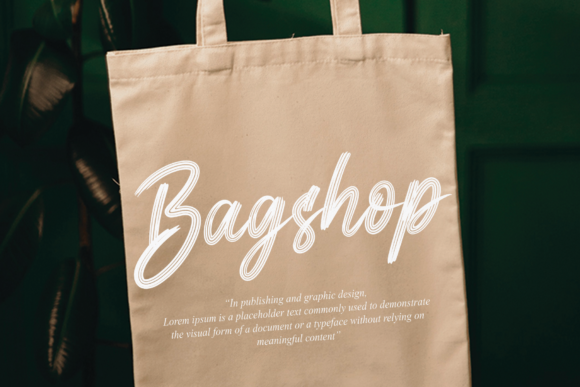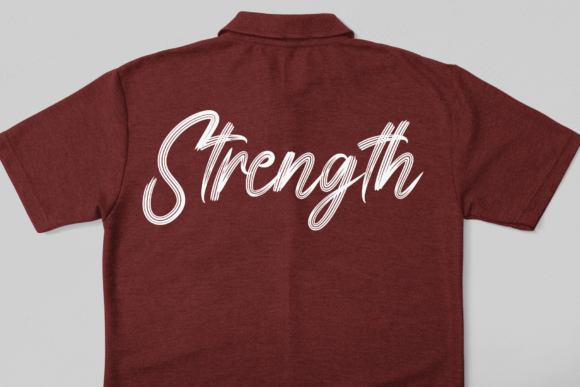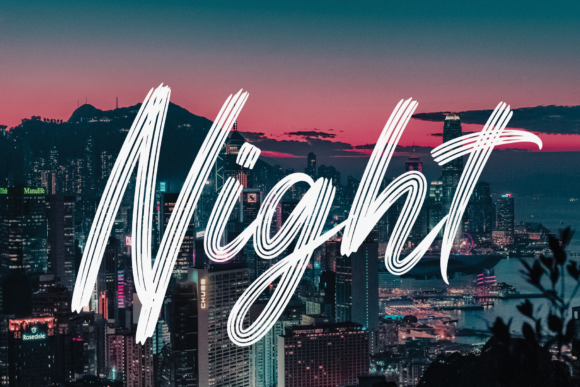
Bold Font
Bold is a lovely and brushed handwritten font. It is the best choice for creating eye catching logos, branding and quotes. Every letter has a unique and beautiful touch, which will make your design come alive!